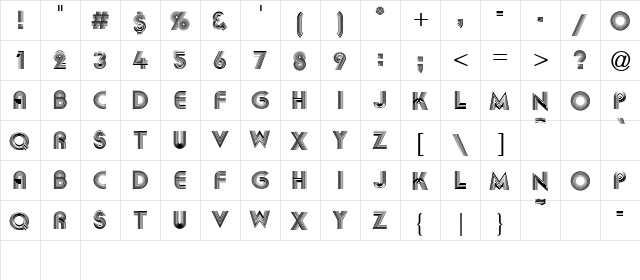
ABIGIL Regular
Design Context for ABIGIL Typeface
ABIGIL is a composed and adaptable typeface that performs quietly and consistently across a wide range of design contexts.